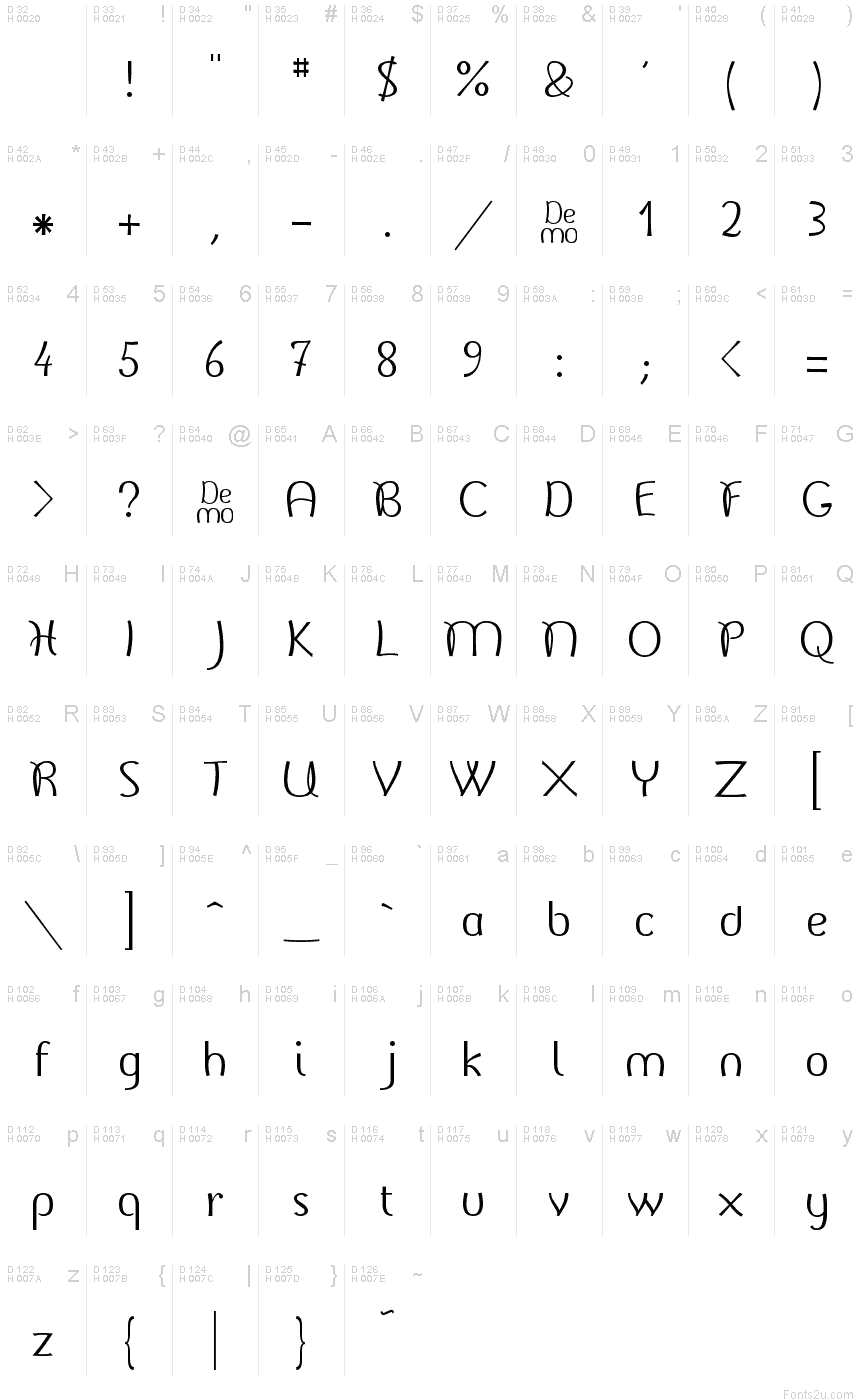
Belladone
Belladone, created by Jean Boyault of JB Foundry, is a free retro display font shaped by the sinuous theatricality of Art Nouveau lettering, with tall arches, looping cross-strokes, and sharp shifts from hairlines to broad curves. Its silhouette is airy, eccentric, and unmistakably decorative.
It can turn a title into part lettering, part ornament. That role suits cabaret posters, boutique packaging, and music artwork, particularly for designs drawing on turn-of-century elegance and a slightly surreal mood. For perfume labels and fashion branding, the stretched curves can become a recognizable product signature rather than neutral type.